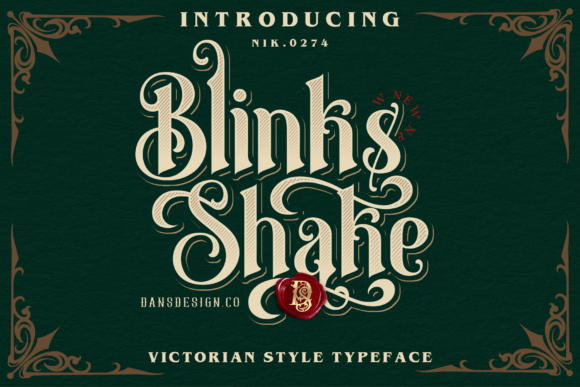
Blinks Shake Font
Blinks Shake is a victorian styled and chic blackletter font. Fall for its ravishing style and use it to create gorgeous wedding invitations, beautiful stationary art, eye-catching social media posts, and much more!